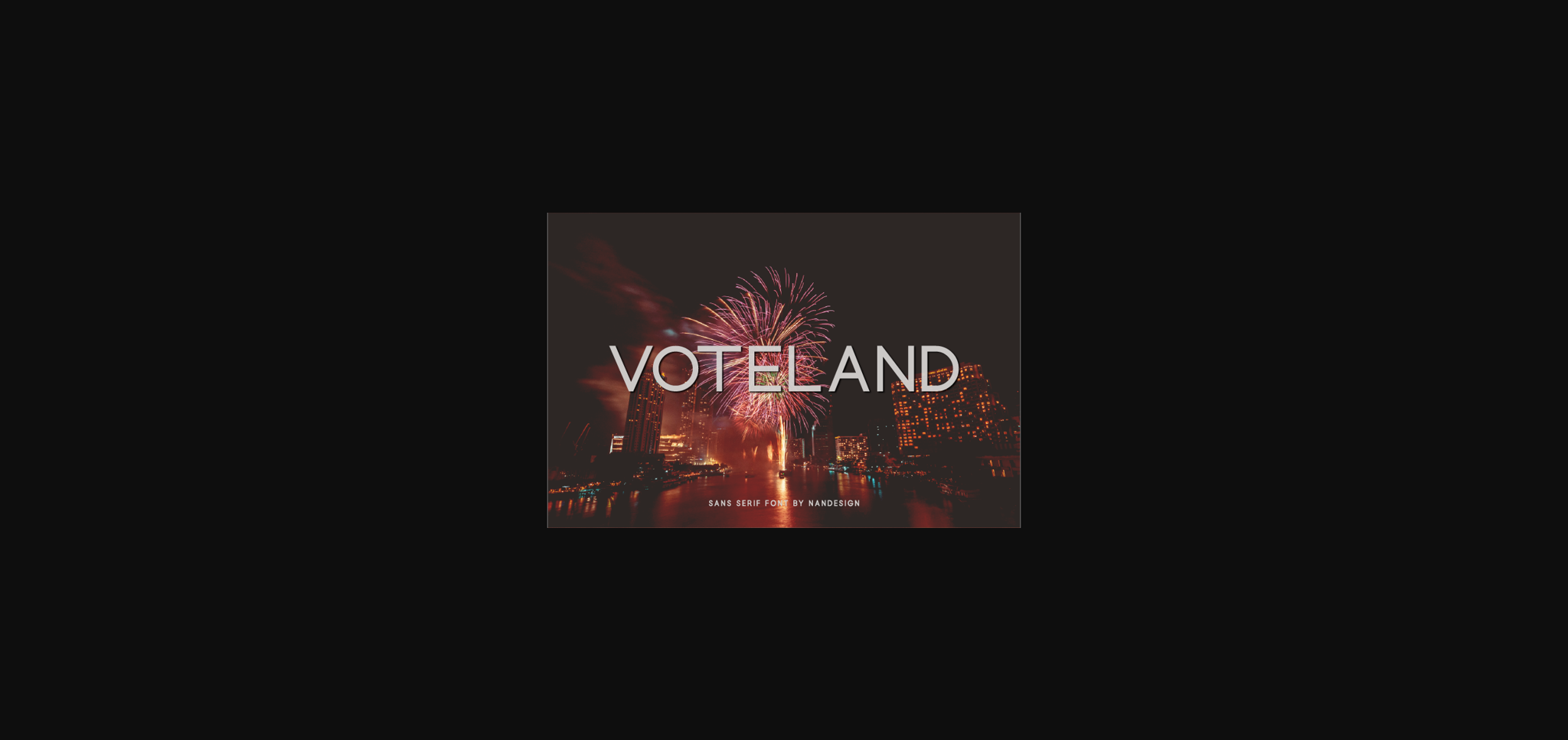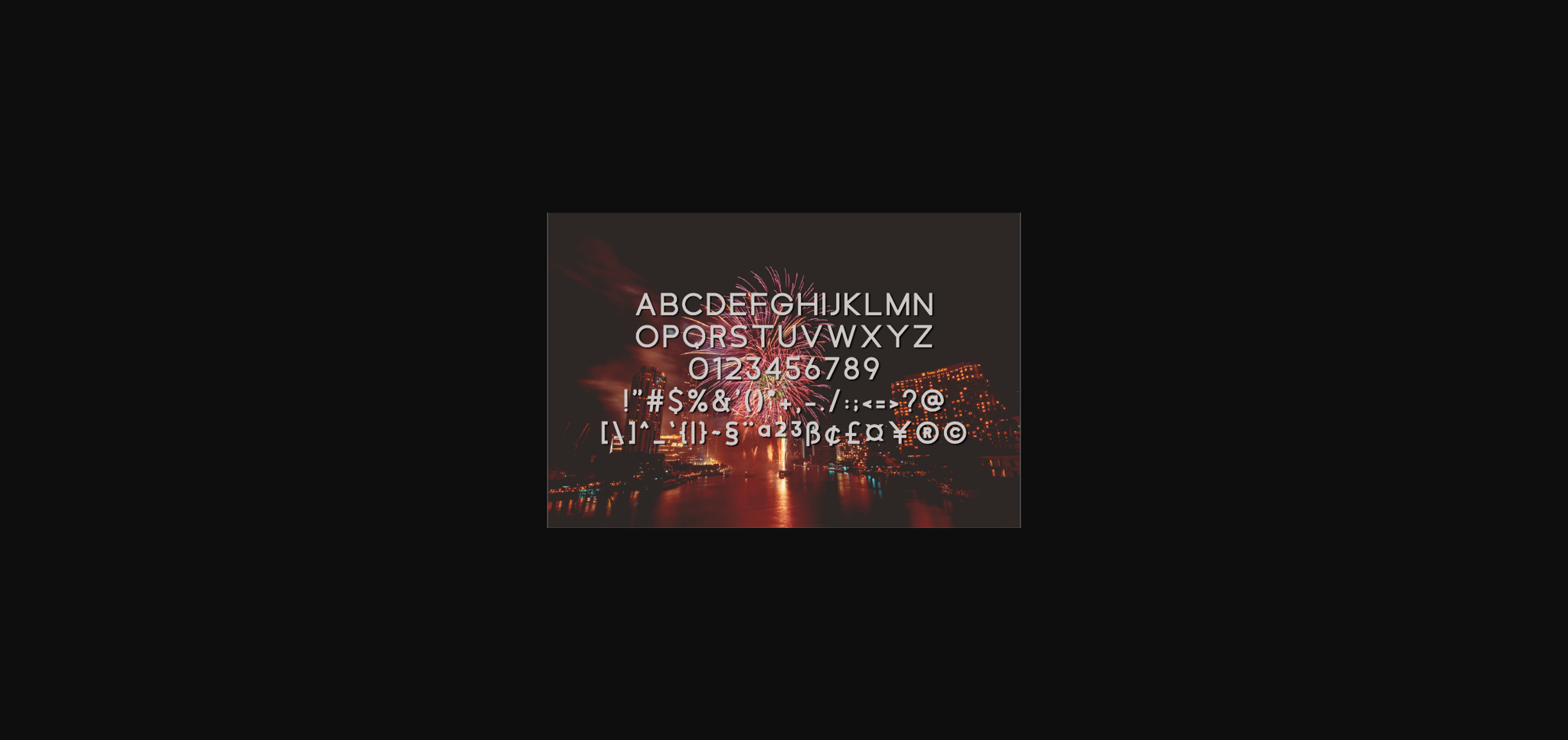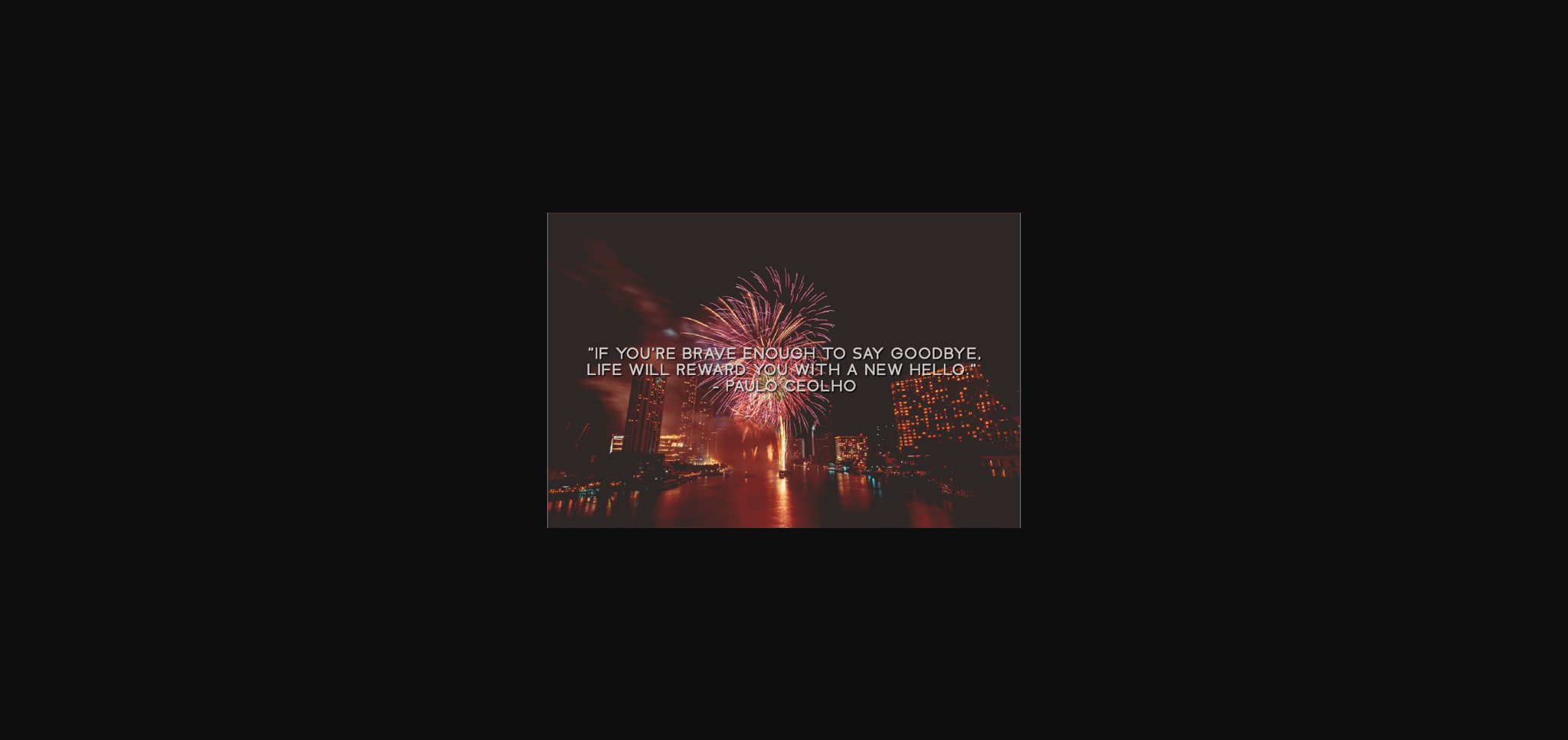
HomeSans Serif FontsVoteland Font Sans Serif Fonts Voteland Font FacebookXPinterestWhatsApp 1 of 5 ... Voteland Font Poster 2... Voteland Font Poster 3... Voteland Font Poster 4... Voteland Font Poster 5... About Voteland Font Voteland is a cool and natural sans serif font. It can easily be matched to an incredibly large set of projects, so add it to your creative ideas and notice how it makes them stand out! DOWNLOAD NOW People also explored Hey Autography Font Heavy Stifle Font Still Pretty Font Nawarty Font Jokaretto Font Badog Font Hello Lovely Font Gutierha Pattery Font Mochest Romantic Duo Font 320 0 TagsVoteland Font Previous articleRosalenna FontNext articleLorentcio Font LEAVE A REPLY Cancel reply Comment: Please enter your comment! Name:* Please enter your name here Email:* You have entered an incorrect email address! Please enter your email address here Website: Save my name, email, and website in this browser for the next time I comment. Personal Use Free Manhattan Personal Use Free Read more about this font Pinky Personal Use Free Read more about this font Dandelions Bloom Personal Use Free Read more about this font My Ugly Handwritting Personal Use Free Read more about this font BLOG How to Install and Use Fonts on Windows, macOS, and Web Projects How to Install and Use Fonts on Windows, macOS, and Web Projects Fonts are a crucial part of design and branding. Whether you’re designing a... How to Cut Any Font on Cricut: Convert a Font to SVG (Free) Free vs Paid Fonts: Why Investing in Premium Fonts Is Worth It Elegant Wedding Invitation Fonts – Handwritten & Script Fonts